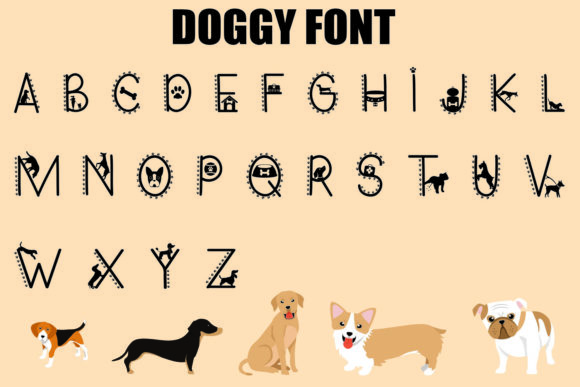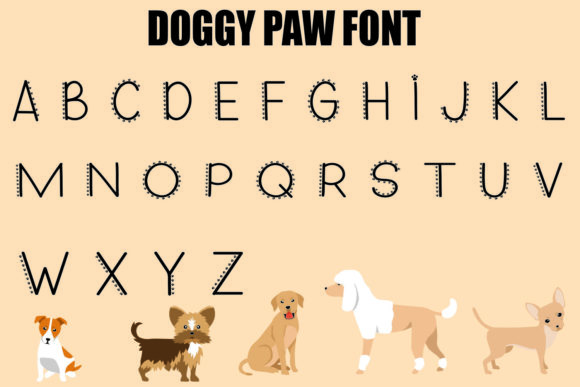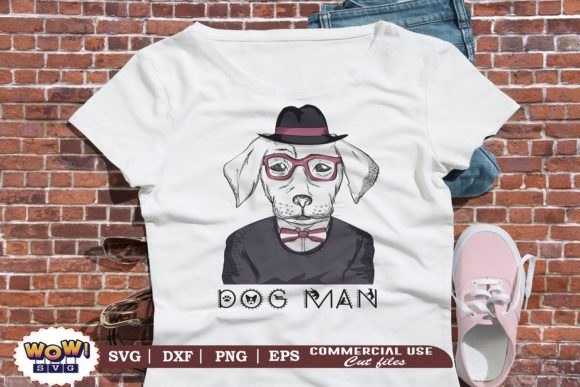
Introducing Doggy Font: The Ultimate Addition to Your Pet-Themed Creations
Are you a designer, crafter, or pet lover looking for a unique and adorable font to elevate your creative projects? Look no further than Doggy Font, a cute and incredibly friendly decorative font that’s sure to make your pet-related ideas stand out!
What is Doggy Font?
Doggy Font is a carefully crafted decorative font designed to capture the playful and affectionate nature of our beloved canine companions. With its sweet and charming appearance, this font is perfect for a wide range of creative projects, from pet-themed crafts and designs to social media graphics and marketing materials.
Key Features of Doggy Font
- Cute and Friendly Design: Doggy Font boasts a delightful design that’s sure to put a smile on anyone’s face. Its playful and approachable style makes it perfect for projects that require a lighthearted and affectionate touch.
- Highly Versatile: Whether you’re working on a pet-themed craft, creating social media graphics, or designing marketing materials, Doggy Font is the perfect addition to your project. Its versatility ensures that it will complement a wide range of design styles and themes.
- Easily Readable: Despite its decorative nature, Doggy Font remains easily readable, making it perfect for use in both digital and print materials. Whether you’re creating a blog post, social media graphic, or flyer, Doggy Font ensures that your message will be conveyed clearly and effectively.
How to Use Doggy Font in Your Creative Projects
- Pet-Themed Crafts: Use Doggy Font to add a personal touch to your pet-themed crafts, such as customized pet tags, pet-themed party decorations, or pet-inspired artwork.
- Social Media Graphics: Elevate your social media graphics with Doggy Font. Create eye-catching posts, ads, or stories that are sure to engage your audience and leave a lasting impression.
- Marketing Materials: Add a touch of personality to your marketing materials, such as brochures, flyers, or business cards, with Doggy Font. Its friendly and approachable design makes it perfect for businesses that want to convey a sense of warmth and approachability.
Benefits of Using Doggy Font
- Unique and Memorable: Doggy Font is sure to make your projects stand out from the crowd. Its unique and memorable design ensures that your message will be remembered long after it’s seen.
- Emotional Connection: The friendly and approachable design of Doggy Font helps to create an emotional connection with your audience. This is especially important for pet-themed projects, where the goal is to evoke feelings of warmth and affection.
In conclusion, Doggy Font is a must-have addition to any designer’s or crafter’s toolkit. Its cute and incredibly friendly design makes it perfect for a wide range of creative projects, from pet-themed crafts and designs to social media graphics and marketing materials. With its highly versatile and easily readable design, Doggy Font is sure to make your projects stand out and leave a lasting impression on your audience. So why wait? Download Doggy Font today and start creating adorable and engaging projects that will capture the hearts of pet lovers everywhere!